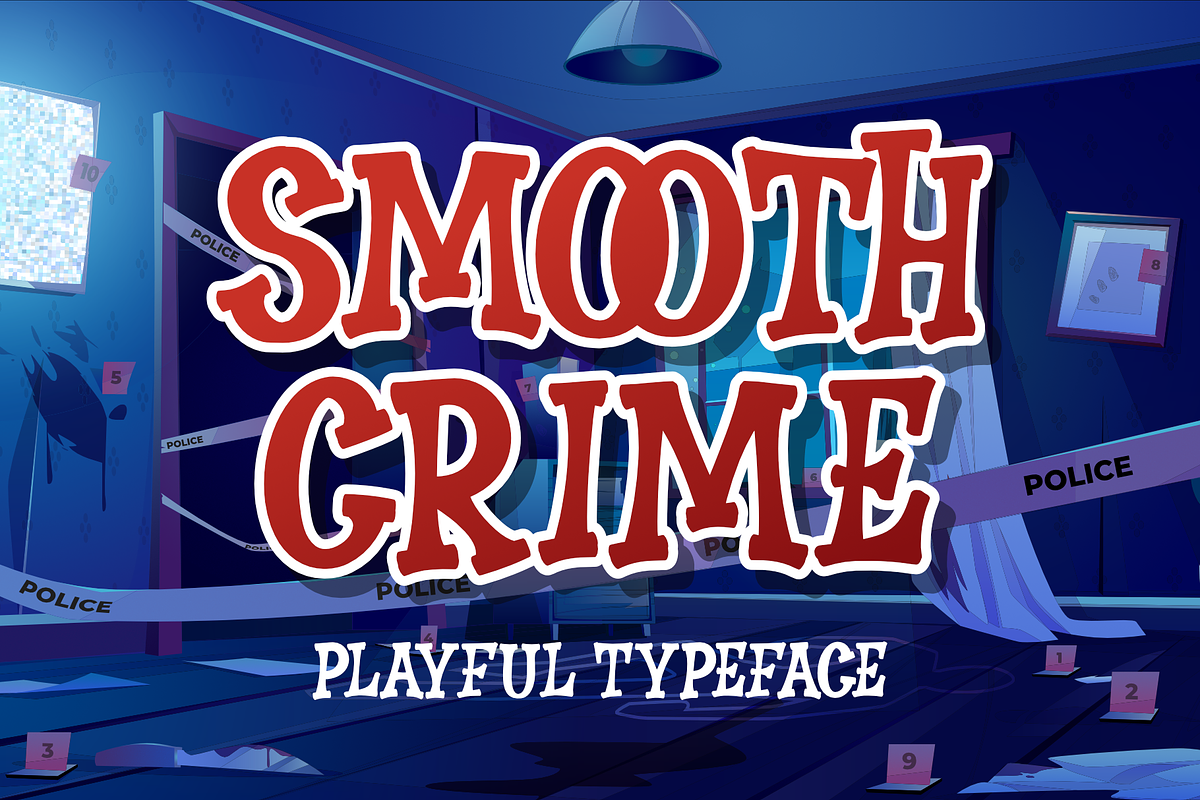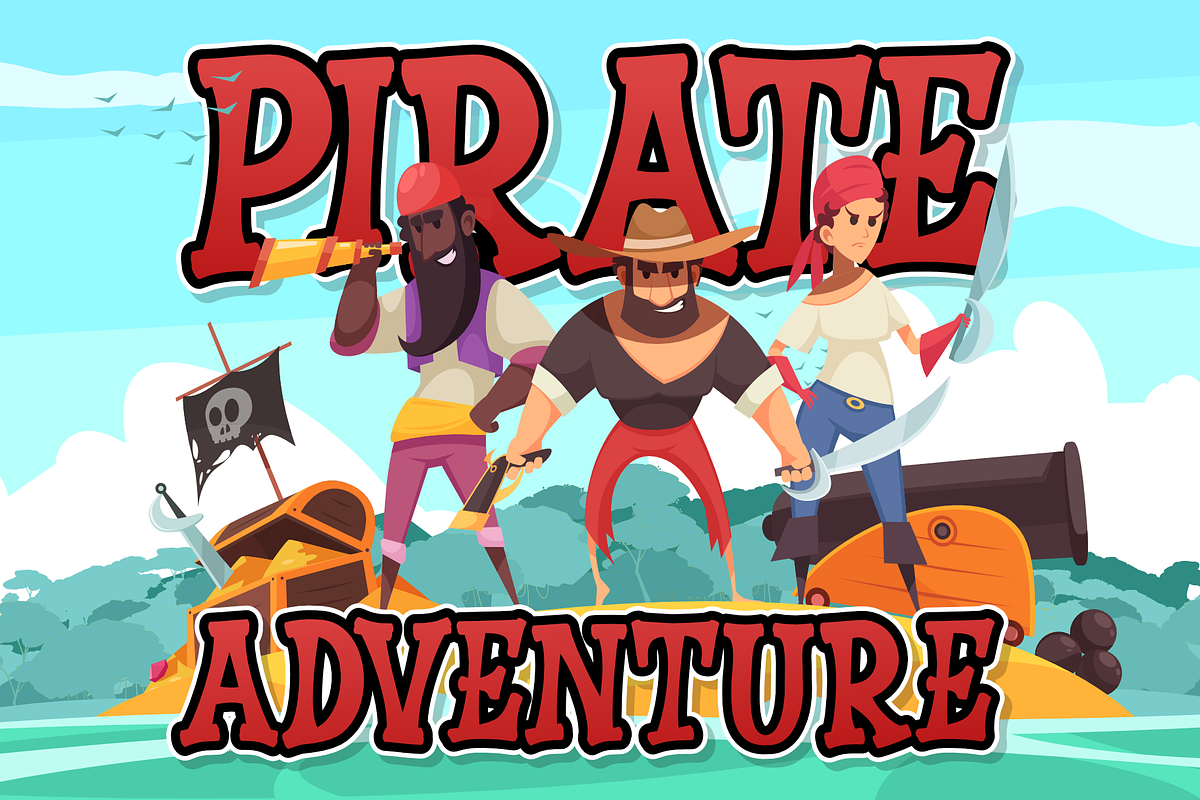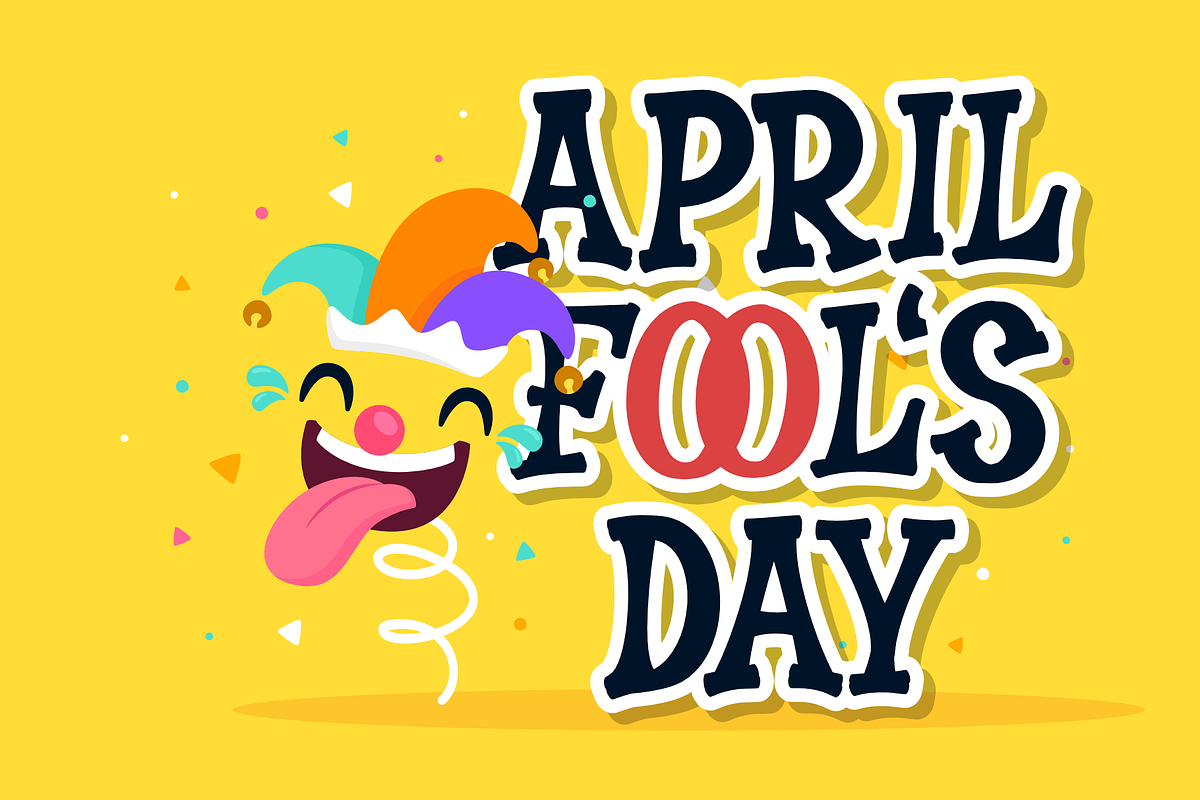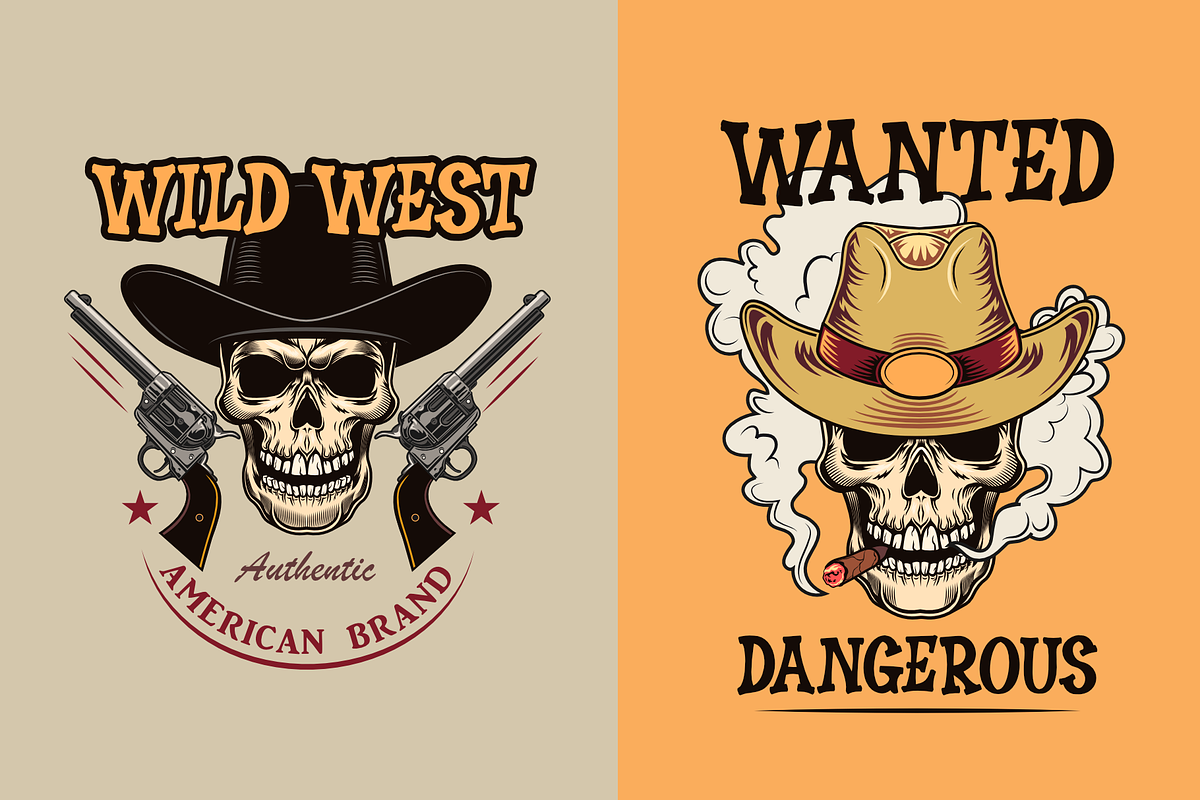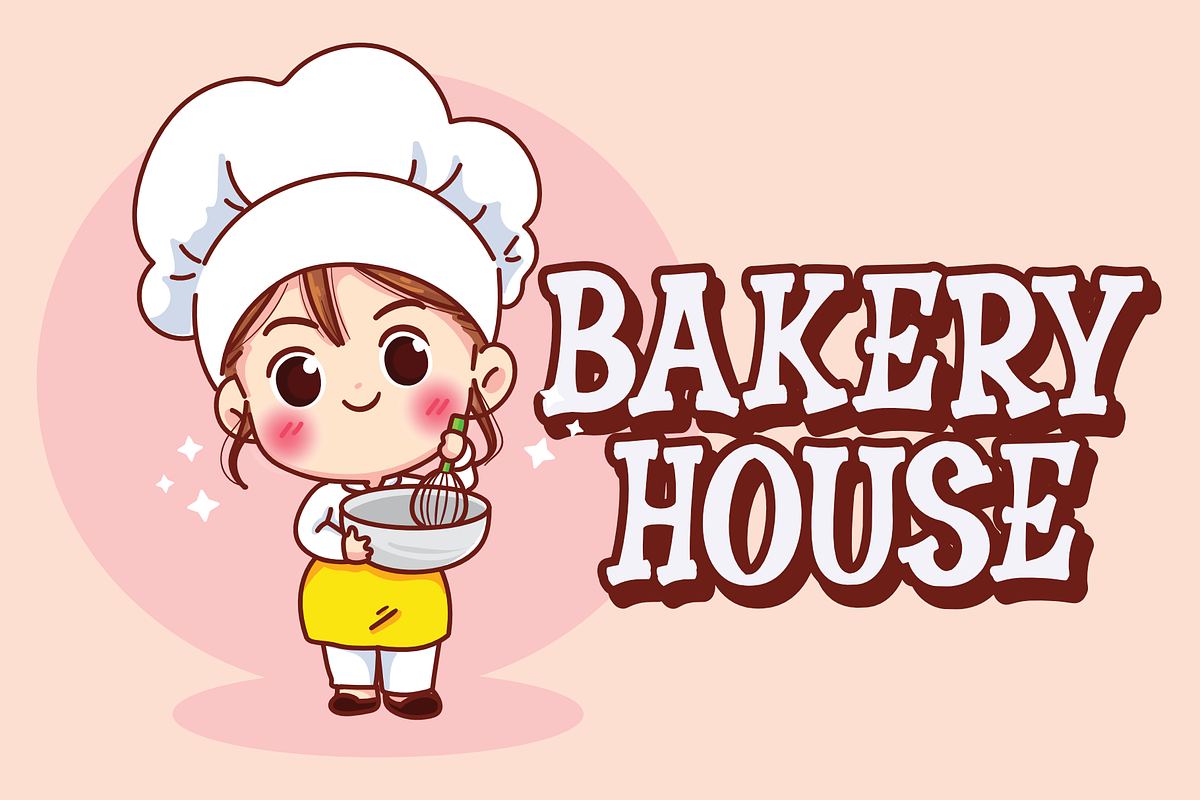
Smooth Crime
Smooth Crime is a messy font unique, cute, and amazing ready for all design needs.
Smooth Crime is perfect for use in event design projects, posters, t-shirt design, branding, advertisements, titles, and more. collaborated into your designs, these fonts will enhance the quality of your designs.